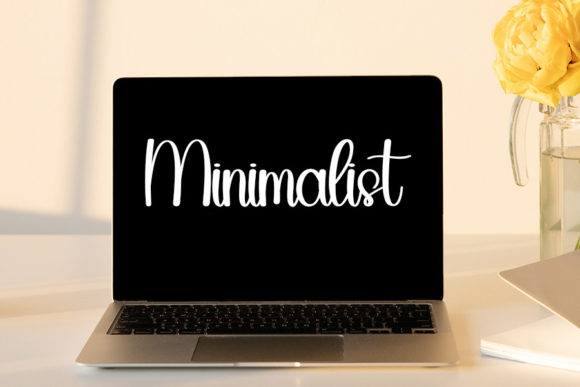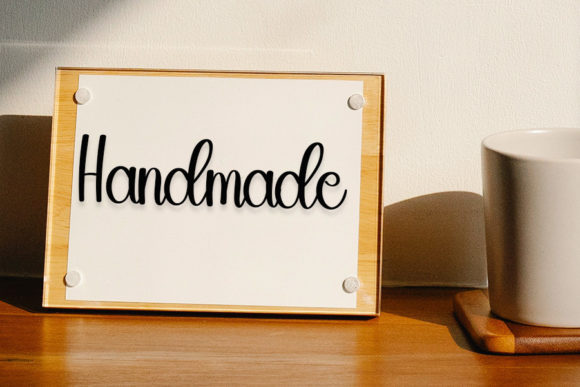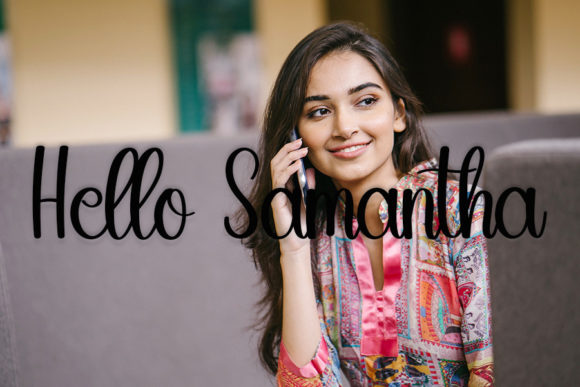
About Chaligraphy Font
“Chaligraphy” emerges as a friendly handwritten font, meticulously crafted to earn its place as a beloved favorite. Skillfully blending the timeless grace of calligraphy with a modern, invigorating twist, Chaligraphy strikes a harmonious balance between the classic and the contemporary.
With every stroke of “Chaligraphy,” you’ll sense a welcoming embrace, as if each character is extending a hand to greet you. Its friendly curves and flowing lines create an instant rapport, transforming the font into more than just a collection of letters – it becomes a trusted companion on your creative journey. The delicate dance between tradition and innovation is evident in every letter, resulting in a font that feels both familiar and refreshingly new.
However, “Chaligraphy” is not limited to visual aesthetics alone; it possesses an essence that resonates with emotions and sets the tone for genuine connections. The thoughtful design of each letter conveys authenticity, infusing your projects with an inviting and approachable aura. This font transcends mere communication; it’s an invitation to engage, to converse, and to forge lasting bonds.
Whether you’re crafting branding materials, invitations, or any form of design, “Chaligraphy” effortlessly adapts to various contexts. Its ability to seamlessly blend classic calligraphic influences with contemporary freshness ensures its versatility and relevance across a wide spectrum of projects.
In a world where first impressions wield immense power, “Chaligraphy” becomes the brush that paints your creativity with sophistication and warmth. The fusion of timeless elegance and modern appeal allows you to tell stories that resonate deeply with your audience, leaving an indelible mark.
So, invite “Chaligraphy” to be your creative partner. Let its friendly grace guide your hand, and observe as it breathes life into your designs, infusing them with a harmonious blend of tradition and innovation. With “Chaligraphy” as your ally, you’re not simply designing – you’re crafting experiences that touch hearts and ignite inspiration.